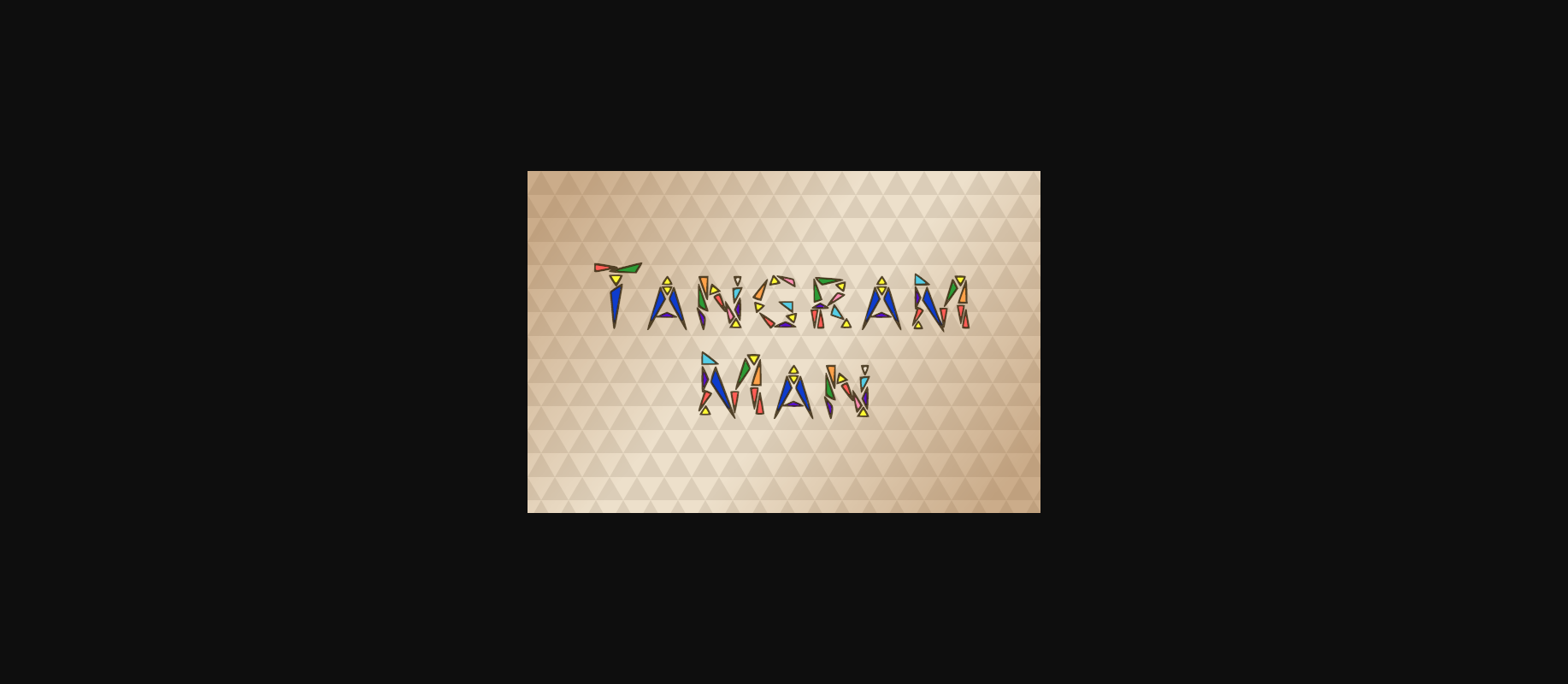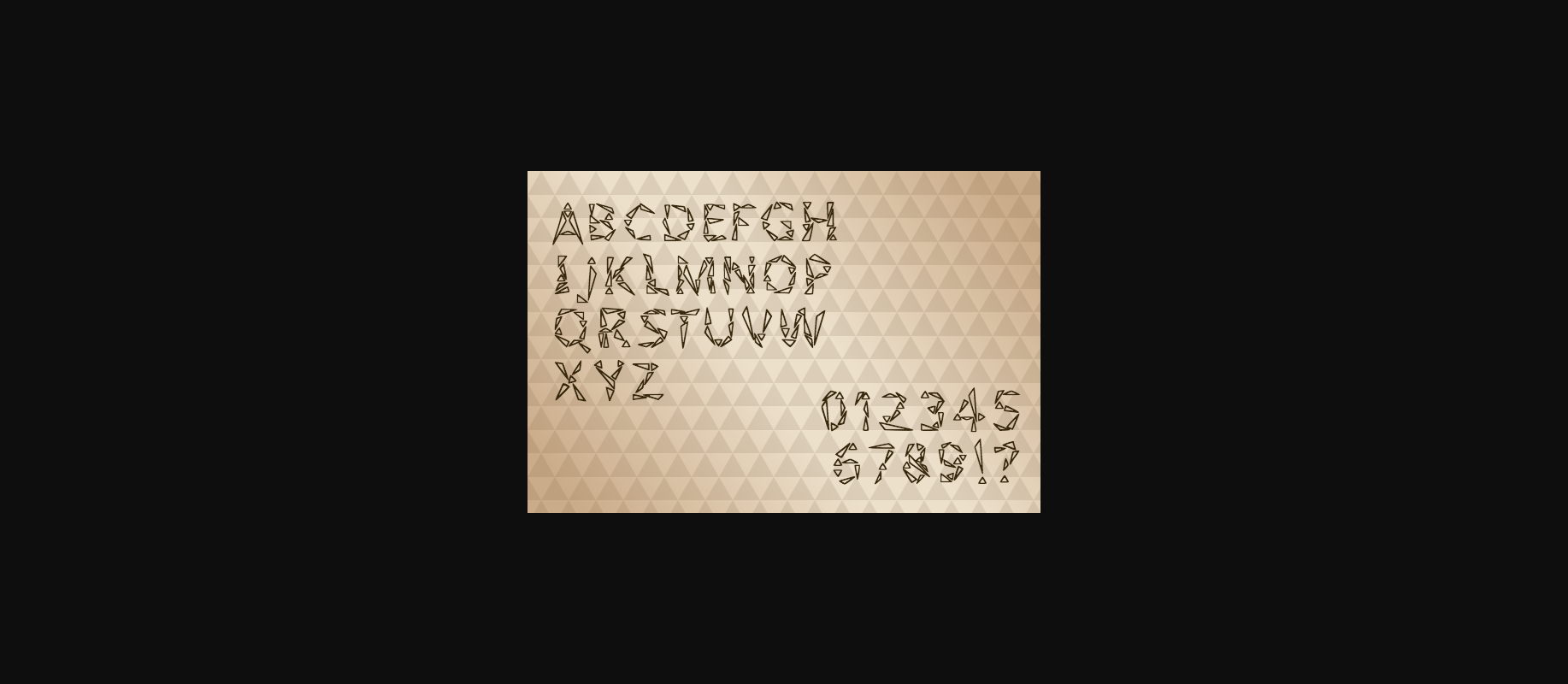
About Tangram Man Font
The Tangram Man is an unique, angular font reminiscent of tangrams and pattern blocks.
It’s suited for all projects that could use a fun touch of spirit.